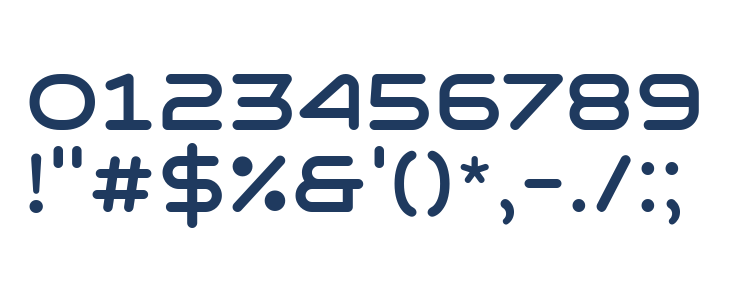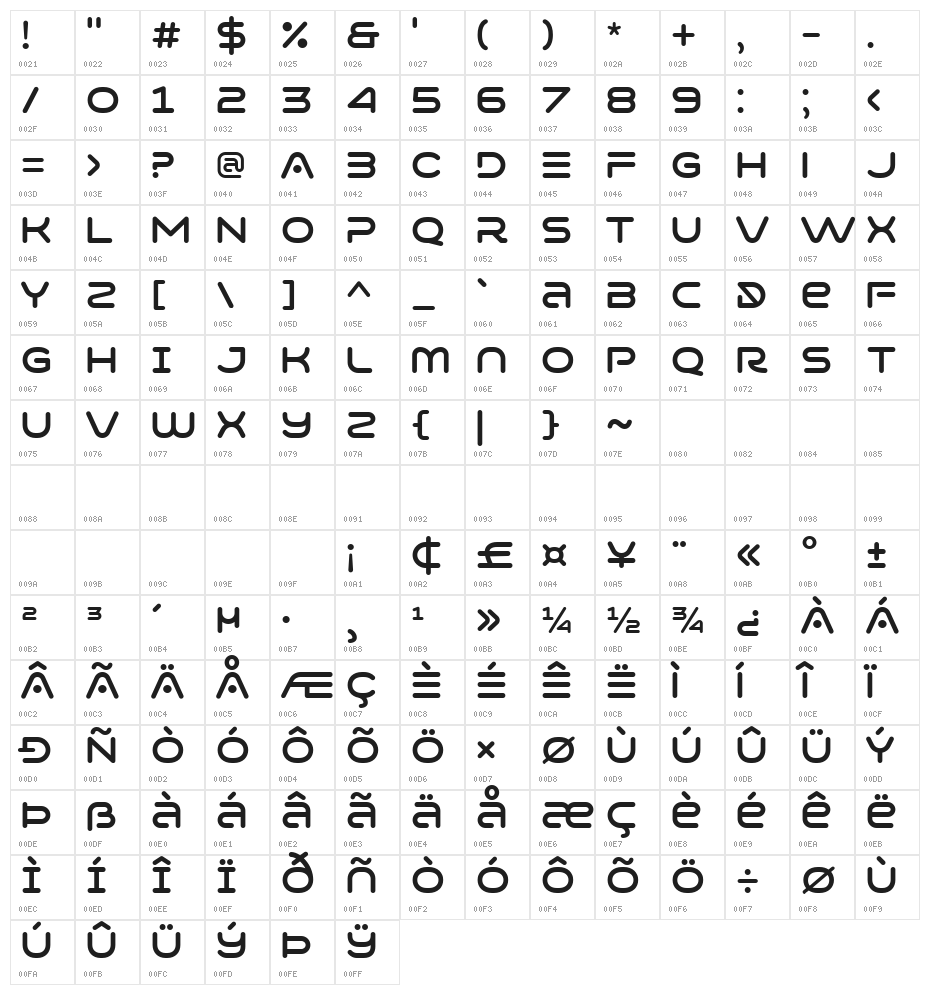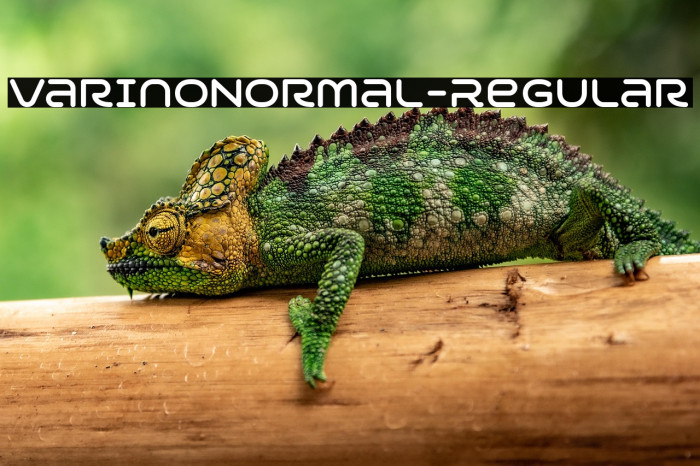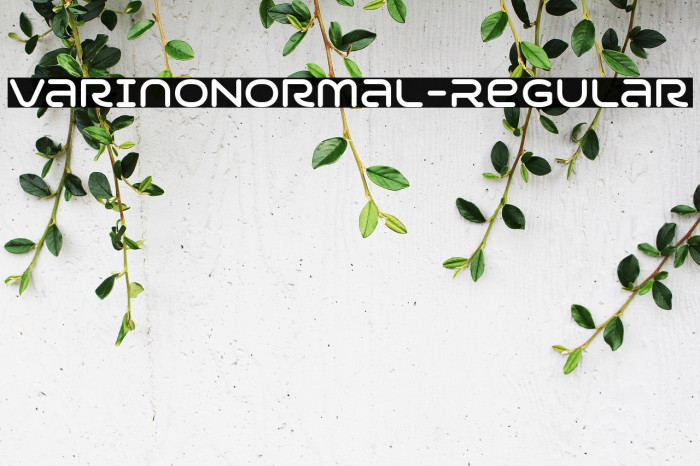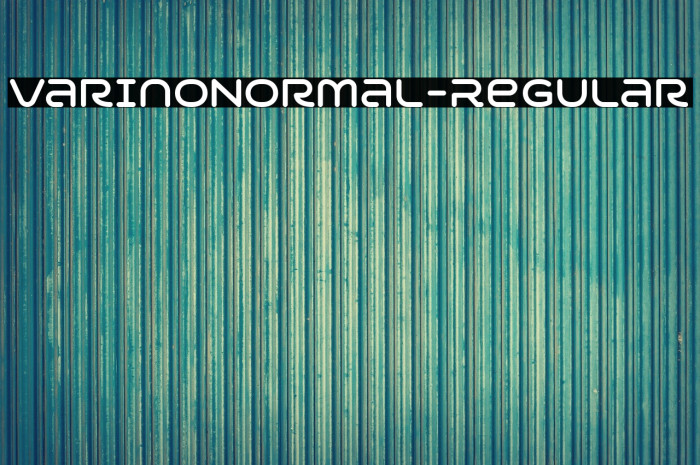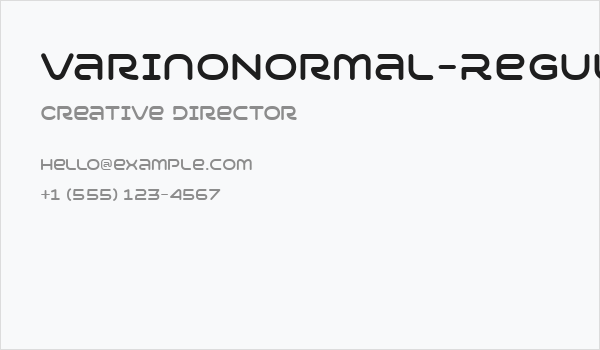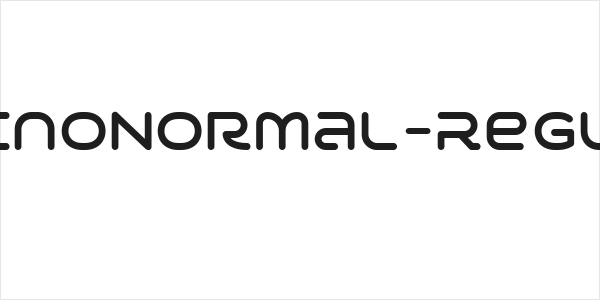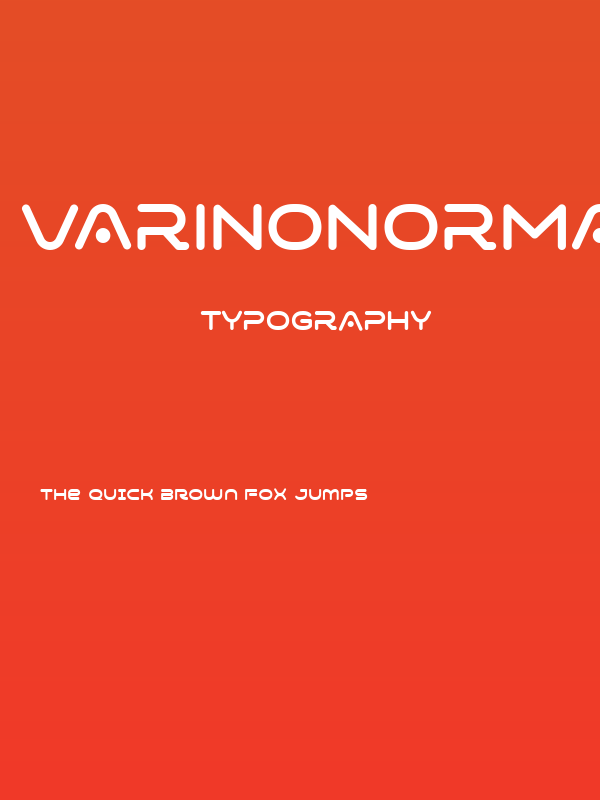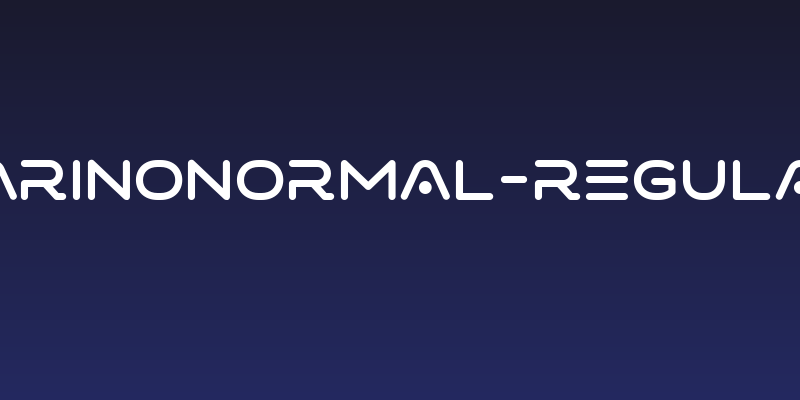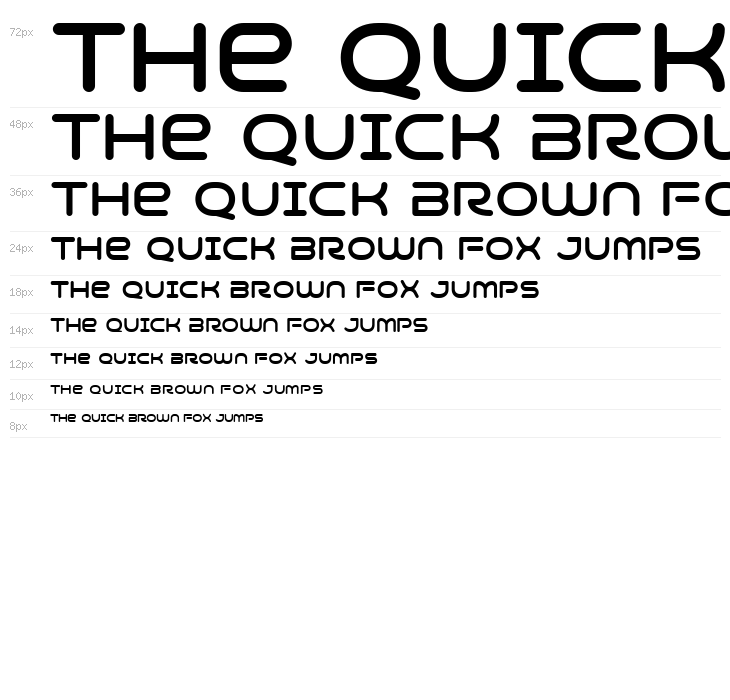
VarinoNormal-Regular Font
VarinoNormal-Regular Description
This font features a modern, geometric design with rounded edges and a clean, futuristic appearance. The characters are uniform in width, contributing to a monospaced feel, although they are not strictly monospaced. The uppercase and lowercase letters share a similar structure, enhancing readability and consistency. The numbers and special characters maintain the same stylistic approach, ensuring a cohesive look across all elements. The font's smooth curves and even stroke weight make it suitable for digital applications, where clarity and precision are paramount. Its unique style is both contemporary and versatile, making it ideal for a variety of design projects.
| Use Case | Logos, Headlines, Digital interfaces |
| Proposed Projects | Ideal for tech branding, digital interfaces, modern advertising, and futuristic design projects. |